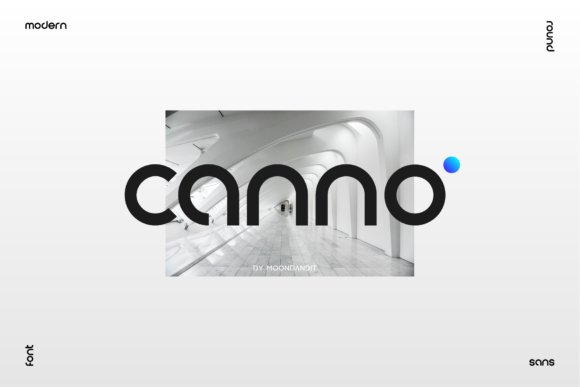
Introducing Canno Font: The Gateway to Bold and Stylish Typography
In a world where visual impact reigns supreme, Canno Font emerges as a beacon of modern design, ready to transform your digital creations into captivating masterpieces. A display font crafted with precision, Canno embodies the essence of sleek sophistication, promising to elevate your projects to new heights of visual appeal.
With Canno Font at your disposal, you'll discover a world of possibilities, where bold headlines dance off the screen, grabbing the attention of your audience and leaving a lasting impression. Its clean lines and sharp angles command respect, while its meticulously crafted curves exude an air of elegance that will leave your readers spellbound.
Whether you're a seasoned designer seeking to infuse your work with a touch of contemporary flair or a budding entrepreneur seeking to make a statement with your brand, Canno Font is your ultimate typography companion. Its versatility knows no bounds, adapting seamlessly to a myriad of creative endeavors, from eye-catching logos and website designs to captivating social media posts and print materials that demand attention.
Embrace the power of Canno Font and unlock the gateway to a world where typography takes center stage. Let your creativity soar as you craft captivating designs that leave an indelible mark on your audience, inspiring them, engaging them, and leaving them craving more.